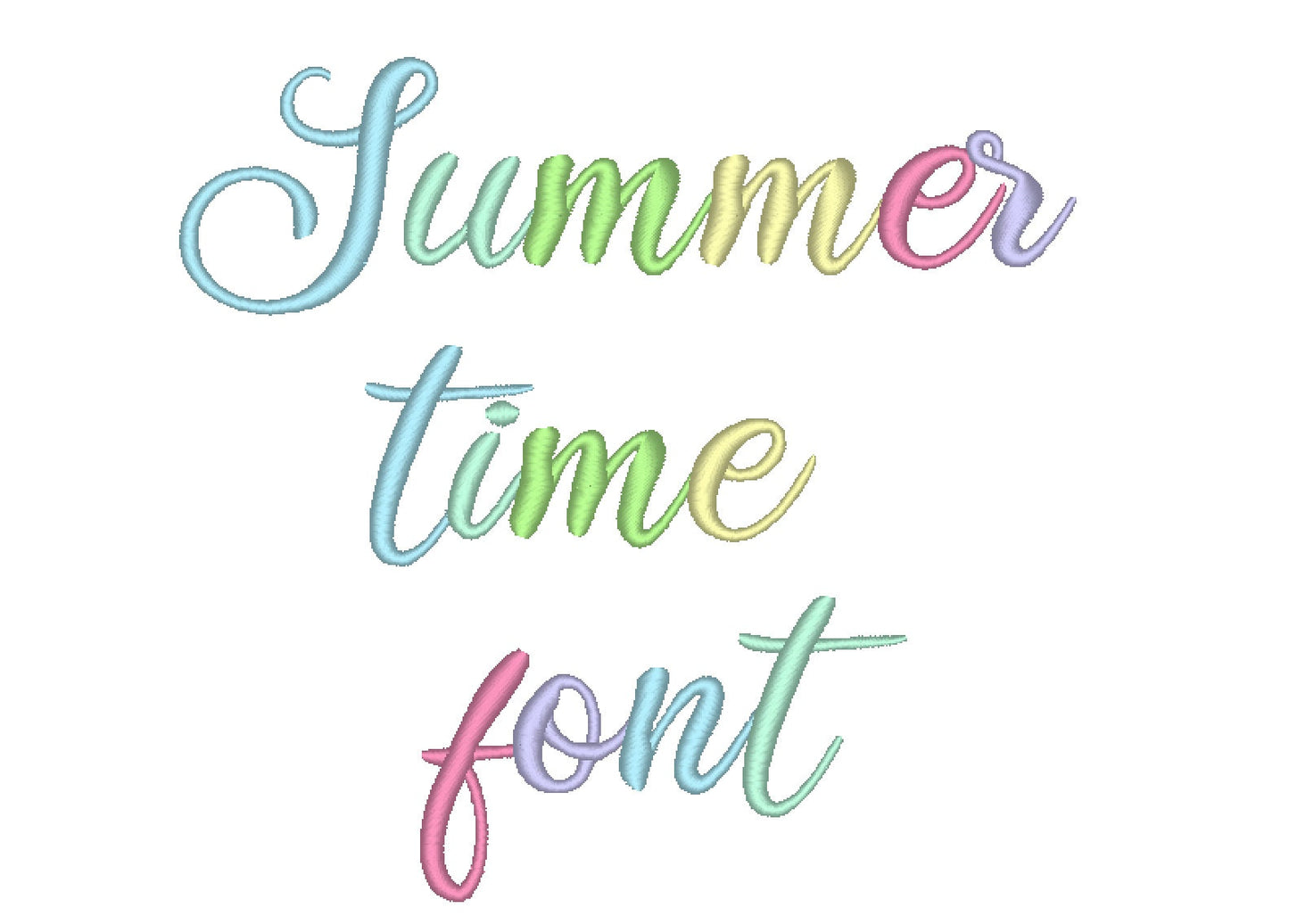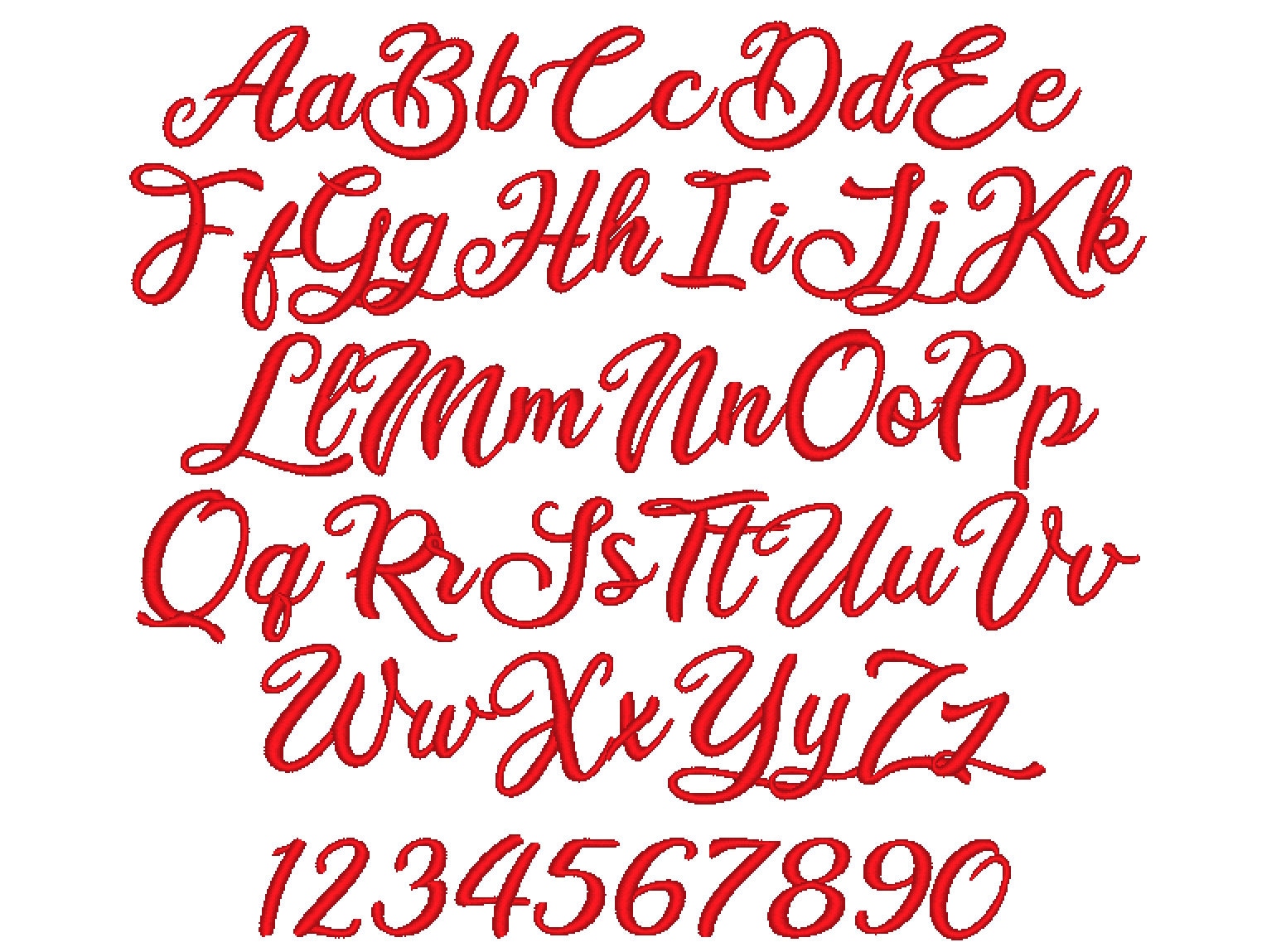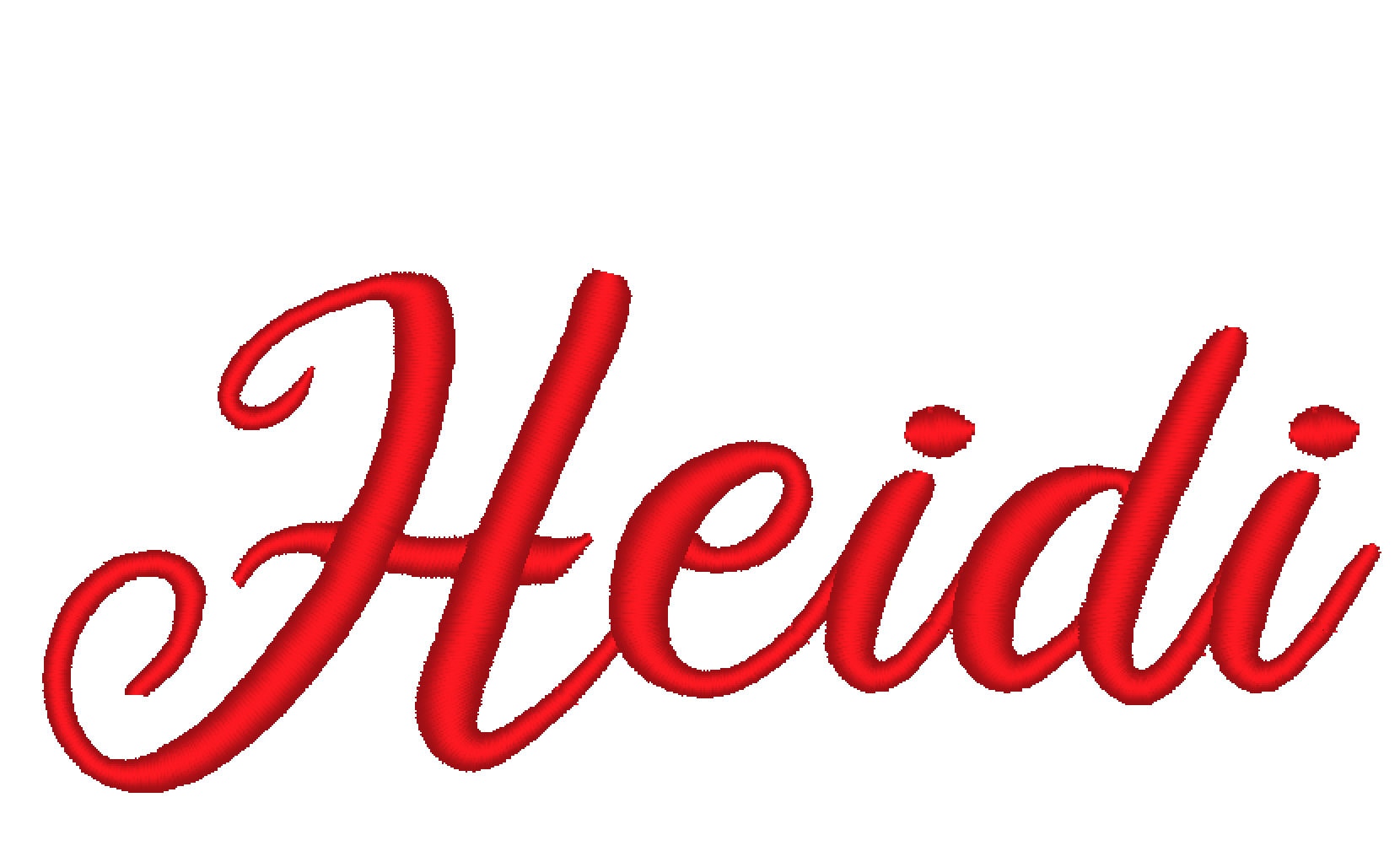
Handwritten Satin Curly Font
Or click to open the linkBallerina, a classy handwritten script in satin stitch with curly swirls. Lovely for small monograms, names and delicate gifts.
Smooth satin stitch letters with elegant curls. Uppercase and lowercase letters A to Z and numbers 0 to 9 in seven sizes: 0.4, 0.6, 0.8, 1, 1.2, 1.6 and 2 inches.
- Curly satin stitch script font
- Uppercase and lowercase letters, numbers 0 to 9
- 7 sizes, 0.4 to 2 in